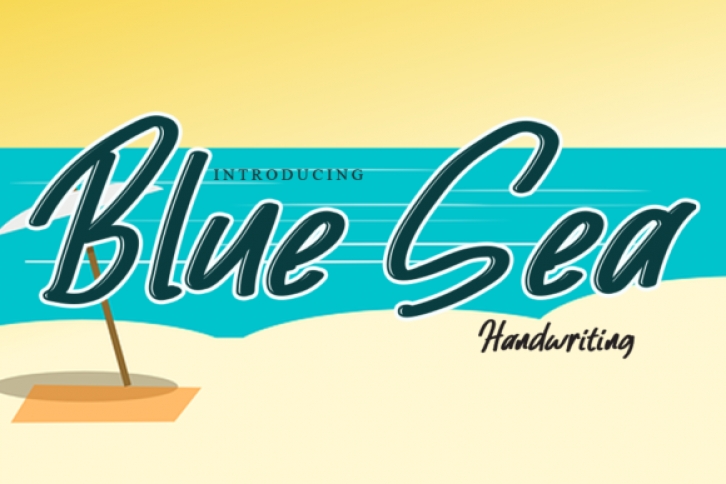
Blue Sea is a sweet and relaxed handwritten font. Its natural and unique style makes it incredibly fitting to a large pool of designs. The possibilities are endless!